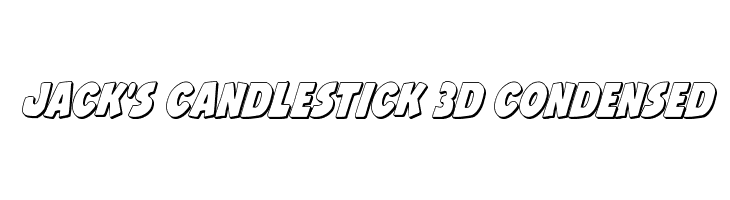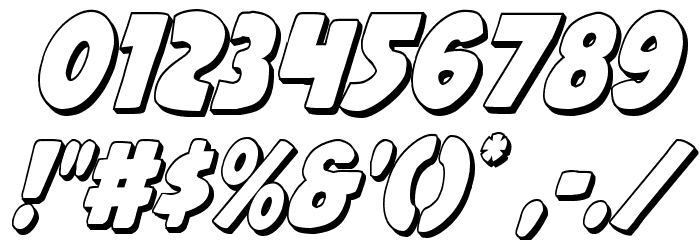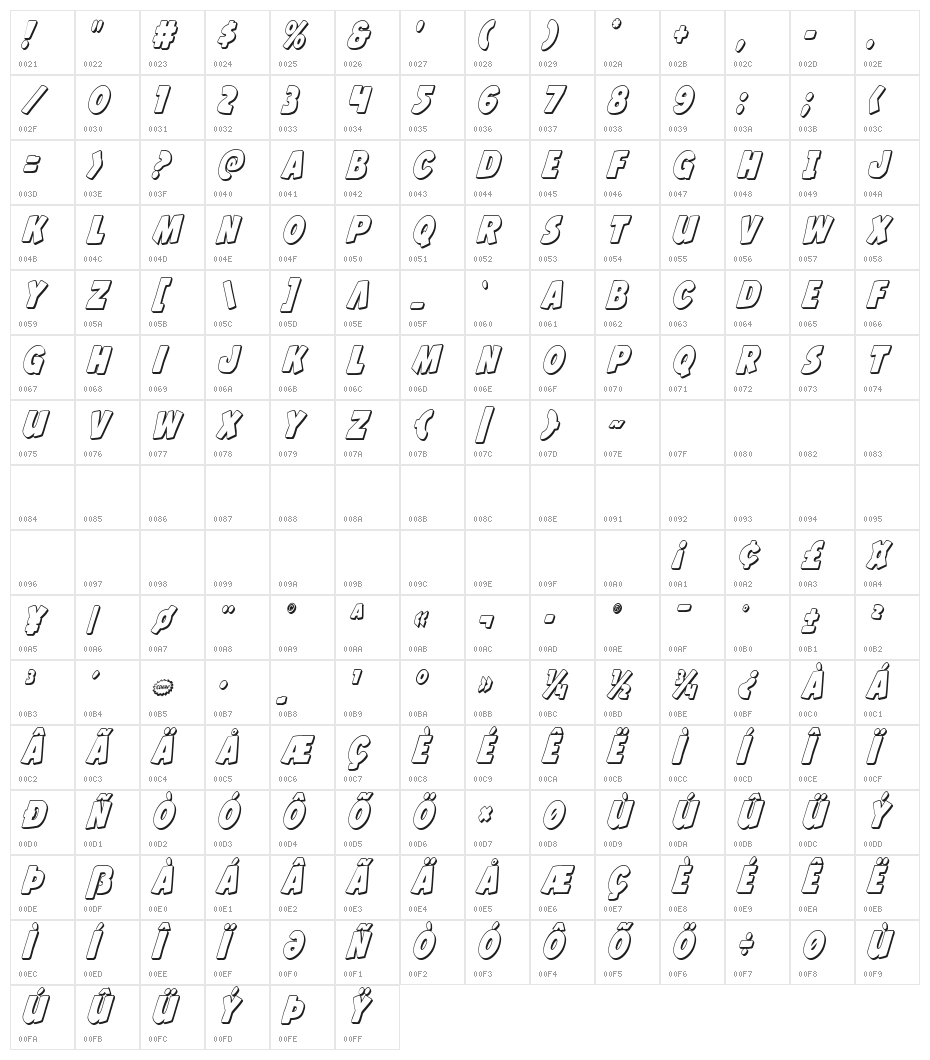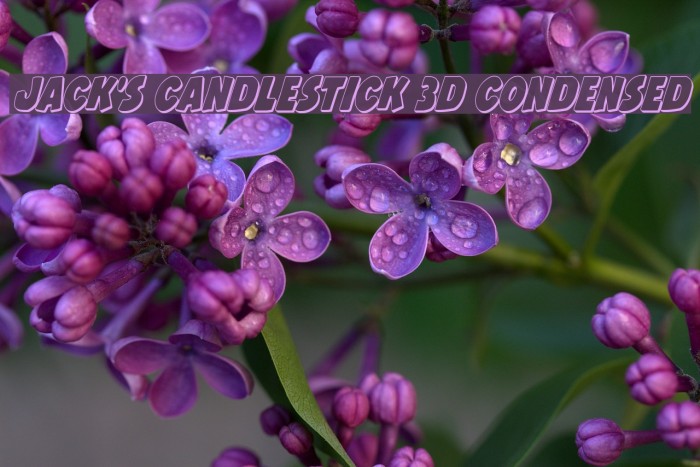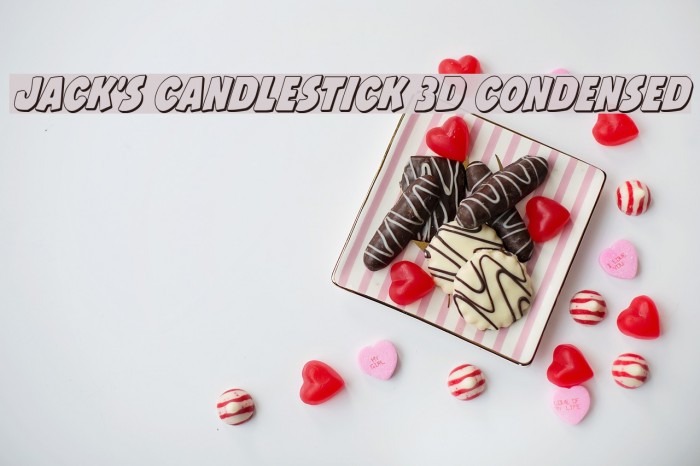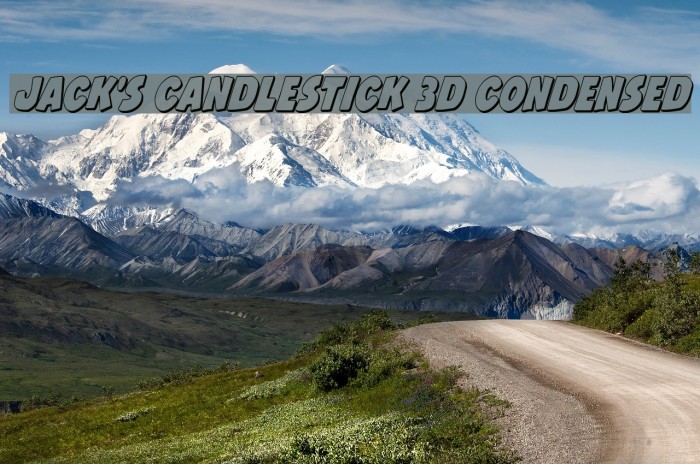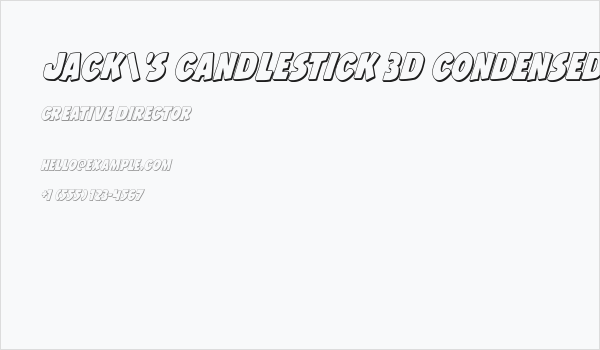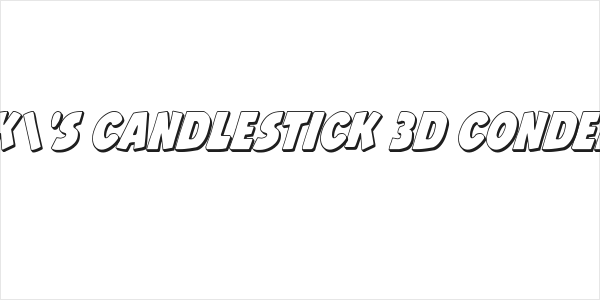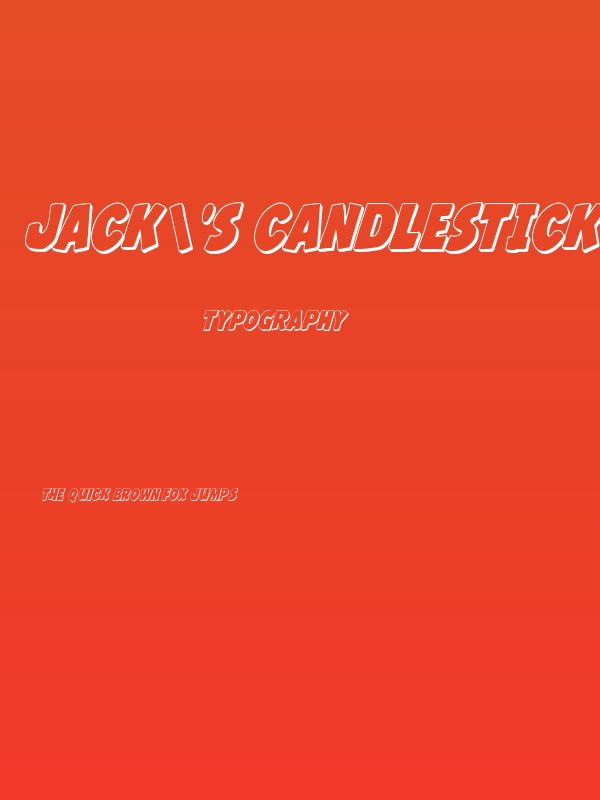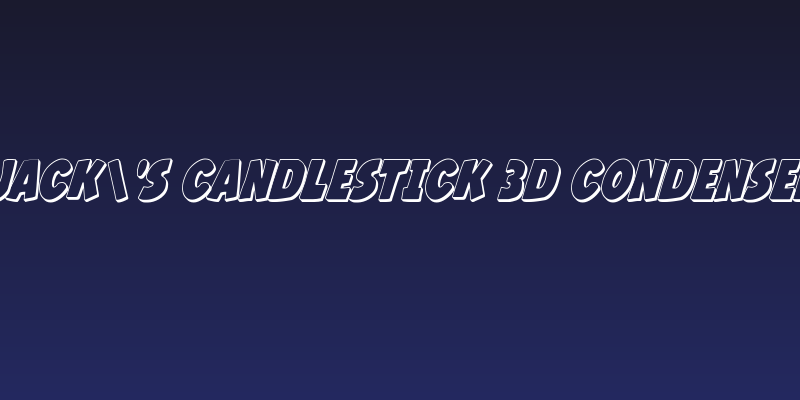
Jack's Candlestick 3D Condensed Font
Jack's Candlestick 3D Condensed Description
This font features a bold, three-dimensional style with a condensed structure. The characters are designed with a playful and dynamic appearance, making them stand out with their thick outlines and shadow effects. The uppercase and lowercase letters maintain a consistent width, contributing to a uniform look. The numbers and special characters are equally bold and follow the same 3D design, enhancing the overall cohesive aesthetic. This font is ideal for projects that require a strong visual impact and a sense of fun and creativity.